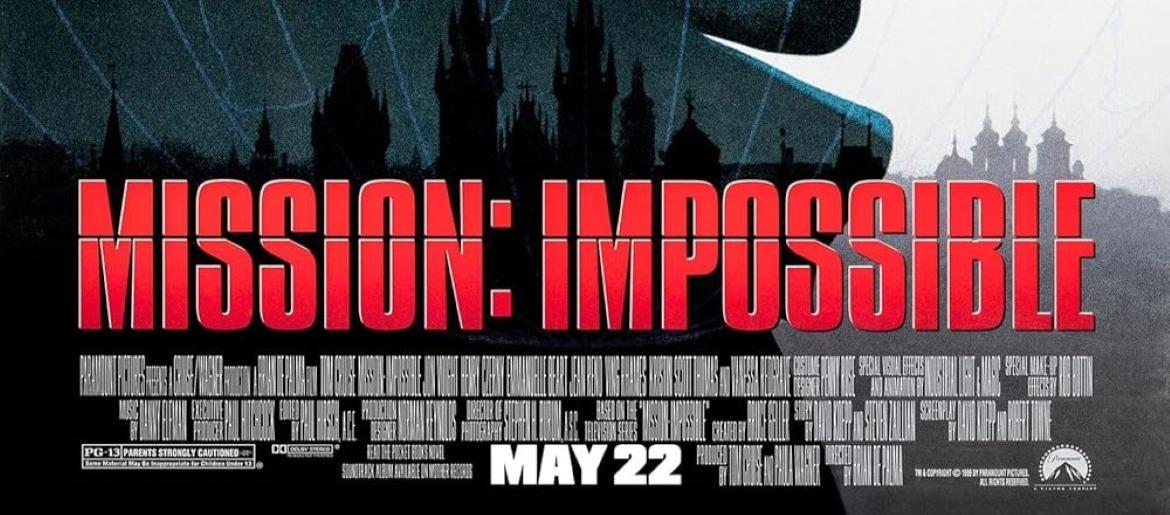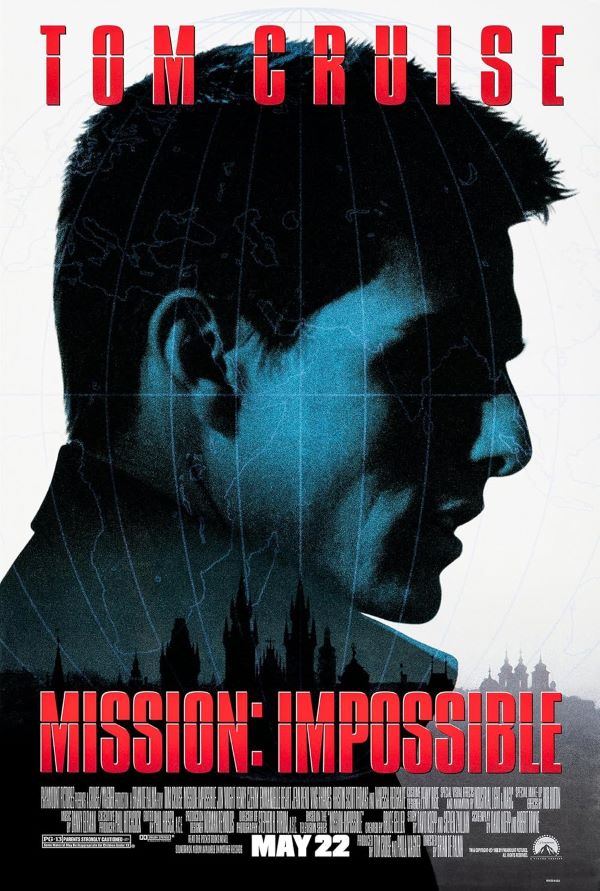
Mission Impossible Font
What Font is Mission Impossible?
The Mission Impossible Font used in the title treatments of the film franchise is a custom-designed typeface created specifically for the brand. Since the exact font is not publicly licensed, you can use a free replica font — often called “Impossible” (Apostrophic Labs)— which closely matches the look and is available for personal use.
About Mission Impossible
Mission Impossible is a high-octane action-spy film series starring Tom Cruise as Ethan Hunt, an agent of the Impossible Missions Force (IMF). Across multiple installments, the films follow Hunt and his team as they undertake extraordinary missions, face impossible odds and race against time. The bold, condensed typography of the logo reinforces the franchise’s themes of precision, urgency and daring stunts.